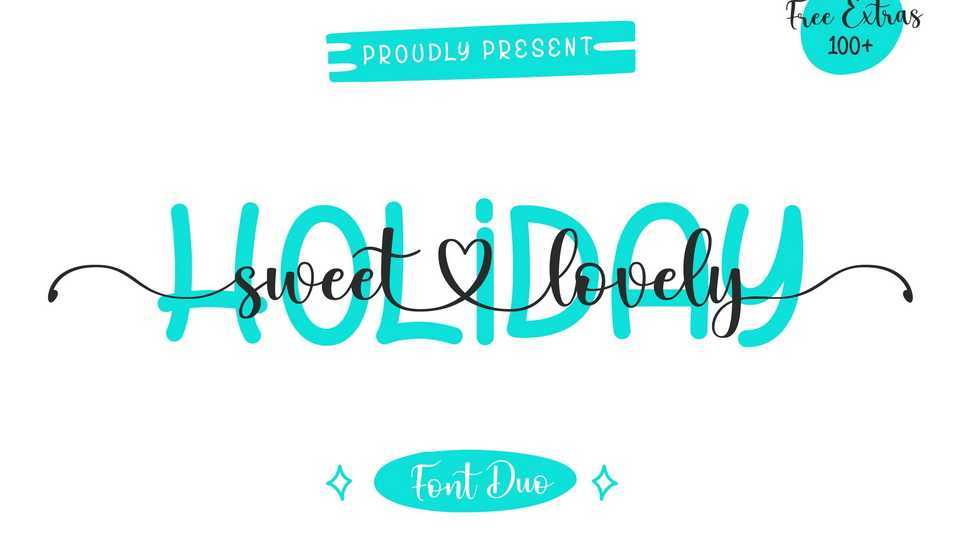
Download Holiday Sweet Lovely font, a spectacular script, defined by characters that dance along the baseline. Incredibly versatile, this font fits a wide pool of designs, elevating them to the highest levels.